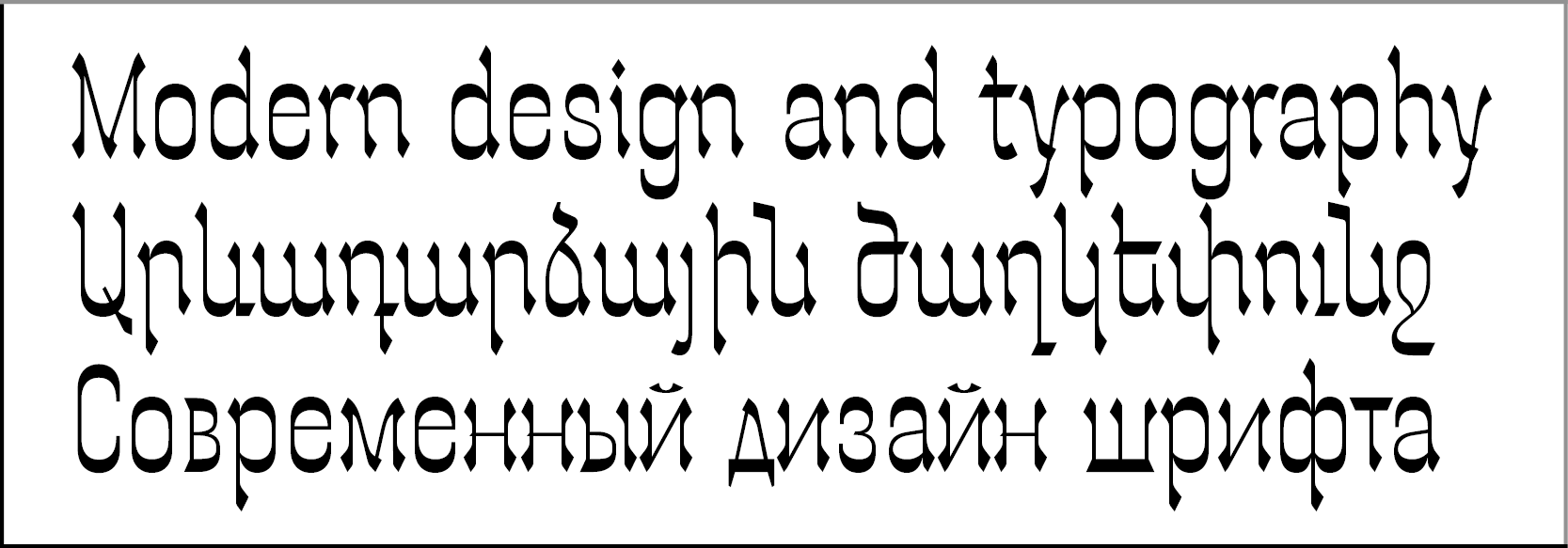
GHEA Joker
Design date: 2024
The font GHEA Joker resembles writing with a stylus, has reverse contrasting shapes and triangular terminals. Includes Latin, Cyrillic and Armenian alphabetic systems.
The font can be used as a title font, for books, covers, etc.